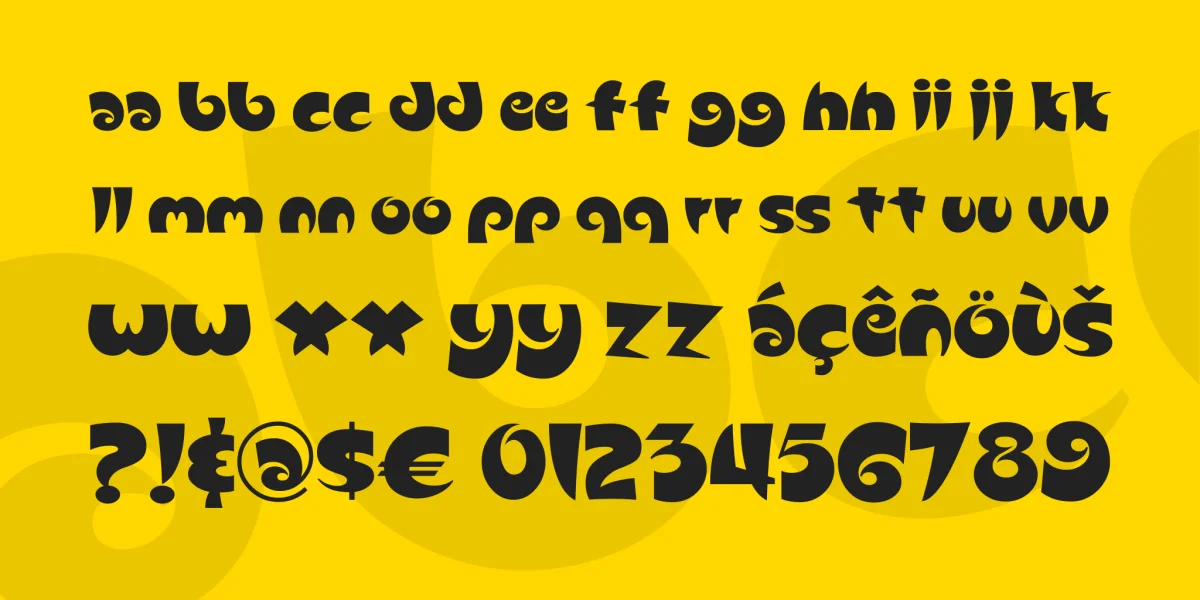
A somewhat strange but immensely fun font, based on a design I saw on the Maniacker wesbite in Japan. The original design had uppercase letters and was called Snail. My version has only lowercase letters, redesigned for consistency.